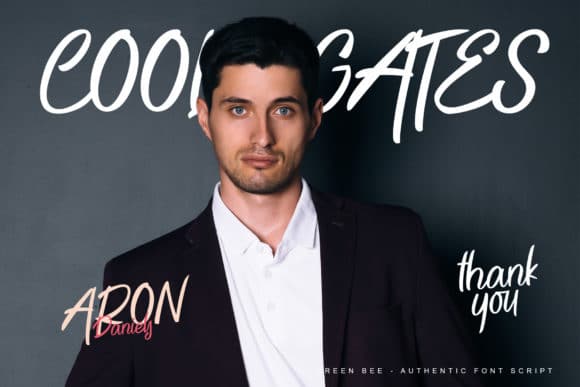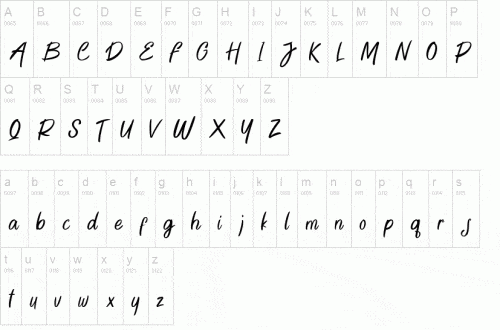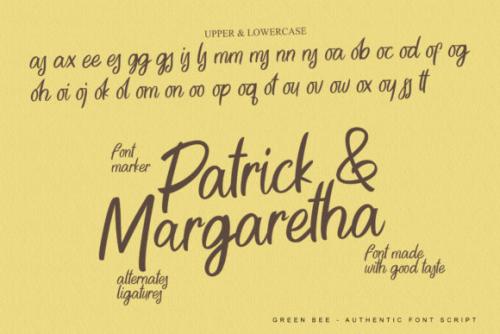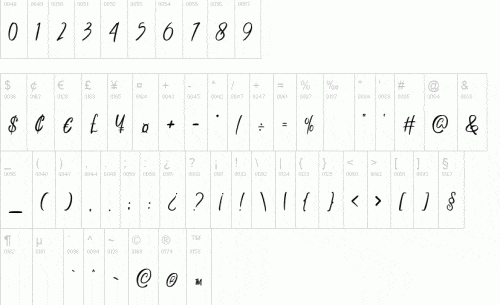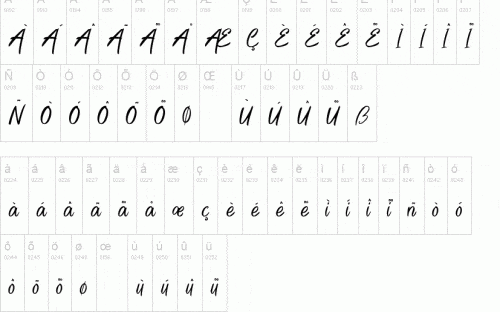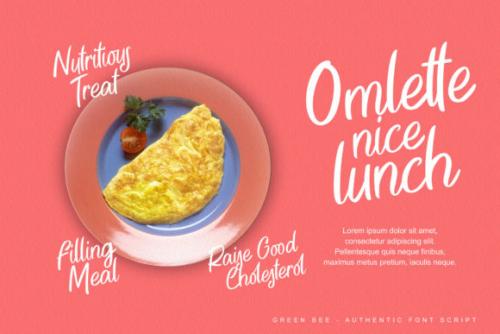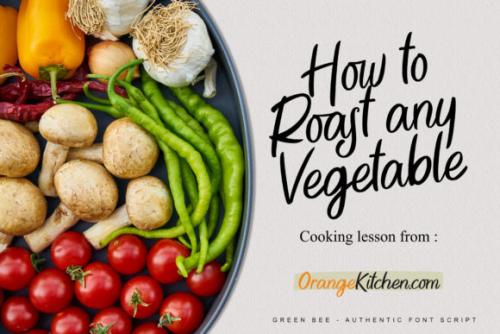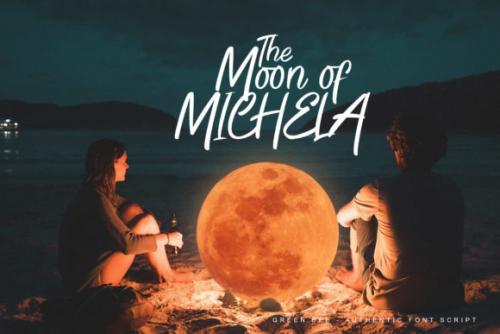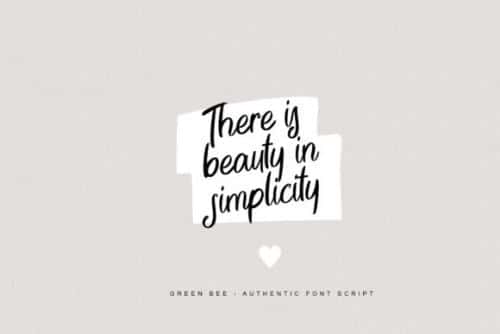
Green Bee is an authentic and casual handwritten font. It looks adorable on personalized designs such as invitations, thank you cards, quotes, greeting cards, logos, social media post, branding, quotes and so much more. Green Bee font will add an amazing touch to each of your projects!
- Designer: Four Lines